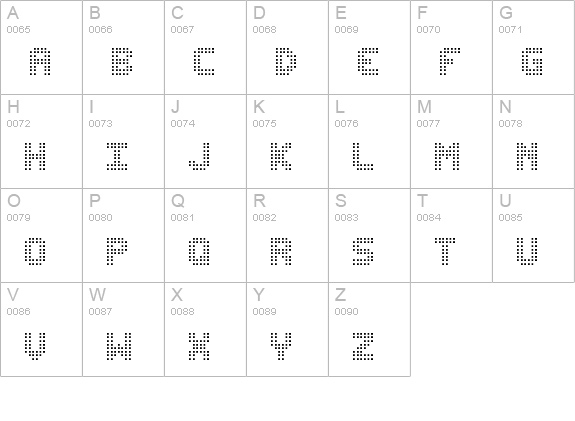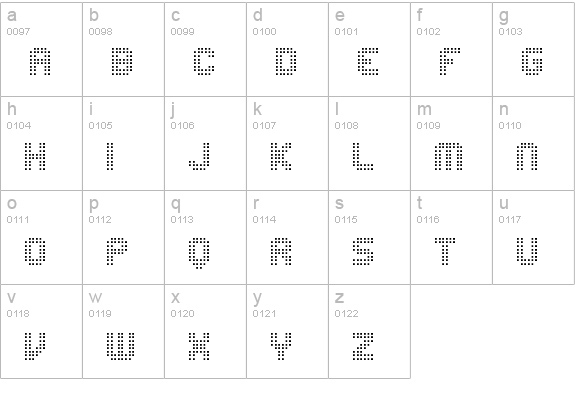
Edit Undo Dot BRK Font Details
Edit Undo Dot BRK font is a visually appealing and versatile typeface that will add a touch of creativity to any design project. This font features a unique dot pattern that gives it a modern and futuristic feel. With its bold and eye-catching appearance, Edit Undo Dot BRK font is perfect for headlines, logos, posters, and other graphic materials. What makes this font even more amazing is that it is completely free. Yes, you heard it right! Edit Undo Dot BRK font is freely available to download at FontsMarket.com. This means that you can use this font without any restrictions or limitations, whether it's for personal or commercial purposes. Not only is Edit Undo Dot BRK font free, but it also offers a wide range of characters and glyphs, making it suitable for multilingual projects. It supports various languages, allowing you to create stunning designs in different languages effortlessly. Whether you are a professional designer or someone who loves experimenting with typography, Edit Undo Dot BRK font is a must-have in your font collection. Its bold and unique style will make your designs stand out from the crowd, leaving a lasting impression on your audience. So why wait? Head over to FontsMarket.com and download Edit Undo Dot BRK font for free today. Unleash your creativity and explore the endless possibilities this font has to offer.